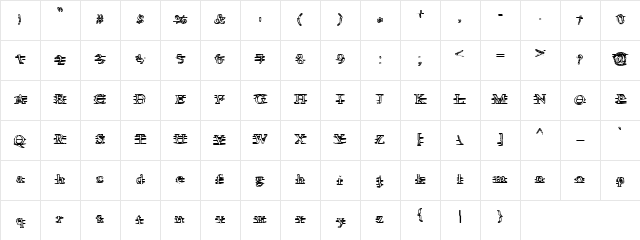
Complete Are you awake, Neo? Regular glyph index. Displaying only characters natively supported by Are you awake, Neo? Regular font.
Are you awake, Neo? is a composed and adaptable typeface that performs quietly and consistently across a wide range of design contexts.